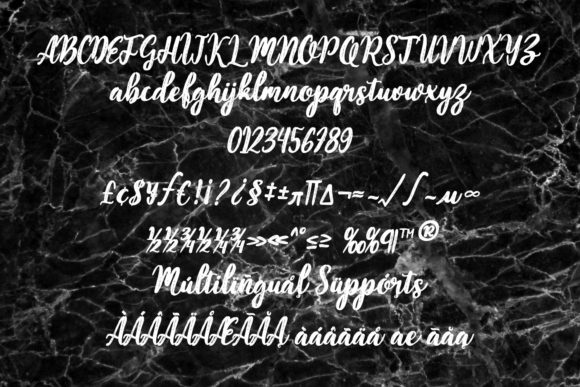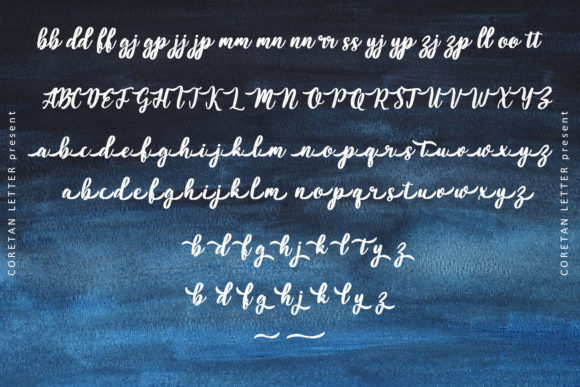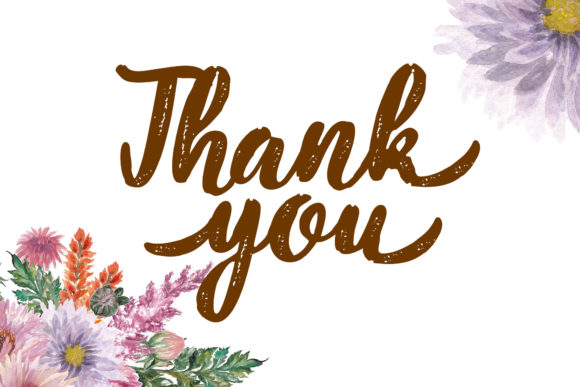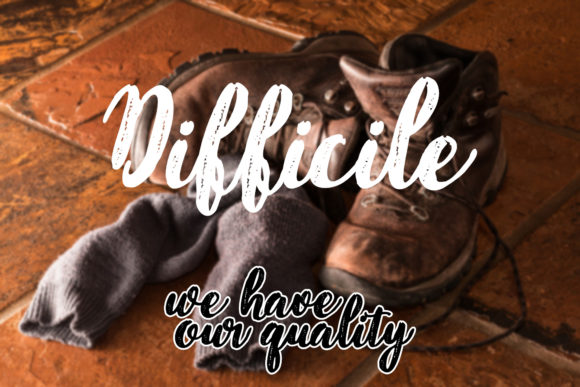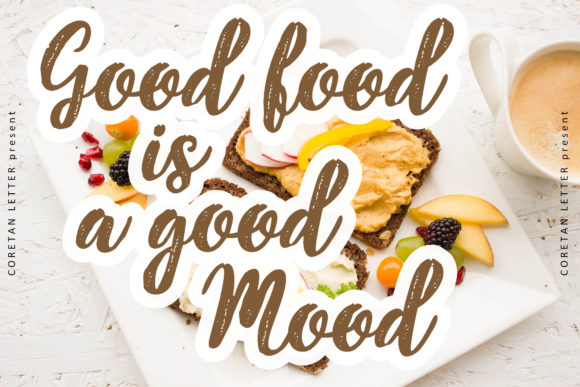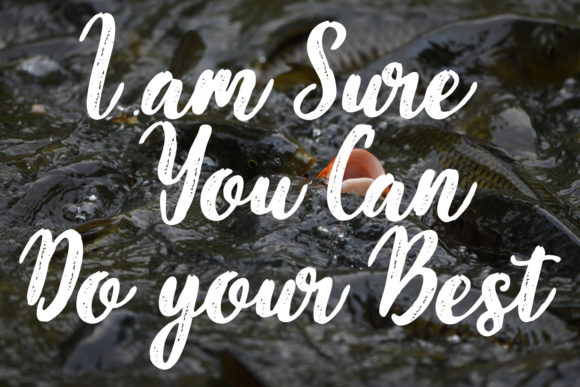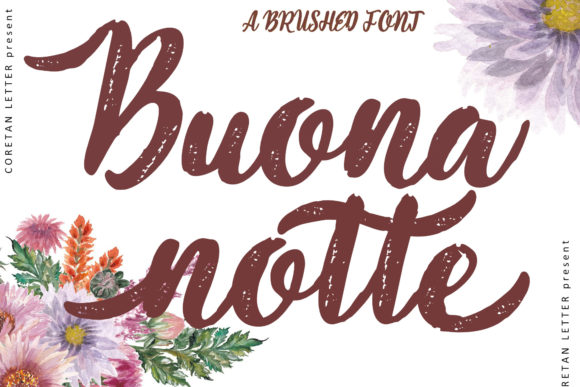
Introducing Buonanotte Font: The Elegant and Dainty Handwritten Font for Crafty Ideas
Are you a designer or crafter looking for a unique and elegant font to elevate your creative projects? Look no further than Buonanotte Font, a beautiful handwritten font that features sweet and delicate swashes. With its original look and versatility, Buonanotte is perfect for a wide range of crafty ideas, from letterheads and titles to stationery.
What Makes Buonanotte Font Special?
Buonanotte Font is an elegant and dainty handwritten font that boasts a distinctive and charming appearance. Its sweet and delicate swashes add a touch of sophistication and whimsy, making it perfect for designers and crafters who want to create unique and eye-catching projects. Whether you’re working on a letterhead, title, or stationery, Buonanotte Font is sure to impress.
Key Features of Buonanotte Font
- Elegant and Dainty Handwritten Font: Buonanotte Font features a beautiful, handwritten design that’s both elegant and dainty.
- Sweet and Delicate Swashes: The font includes sweet and delicate swashes that add a touch of sophistication and whimsy to your projects.
- PUA Encoded: Buonanotte Font is PUA encoded, which means you can access all of the glyphs and swashes with ease.
- Versatile: Buonanotte Font is perfect for a wide range of crafty ideas, from letterheads and titles to stationery.
How to Use Buonanotte Font
Buonanotte Font is easy to use and can be incorporated into a variety of design projects. Here are a few ideas to get you started:
- Letterheads: Use Buonanotte Font to create elegant and sophisticated letterheads that make a lasting impression.
- Titles: Add a touch of whimsy and charm to your titles with Buonanotte Font’s sweet and delicate swashes.
- Stationery: Create beautiful and unique stationery with Buonanotte Font, perfect for special occasions or everyday use.
Benefits of Using Buonanotte Font
There are many benefits to using Buonanotte Font in your design projects. Here are a few:
- Unique and Eye-Catching: Buonanotte Font is a unique and eye-catching font that’s sure to stand out in any design project.
- Elegant and Sophisticated: The font’s elegant and sophisticated design makes it perfect for projects that require a touch of refinement.
- Versatile: Buonanotte Font can be used in a wide range of design projects, from letterheads and titles to stationery.
Tips for Getting the Most Out of Buonanotte Font
Here are a few tips for getting the most out of Buonanotte Font:
- Experiment with Different Sizes and Colors: Try out different sizes and colors to see how Buonanotte Font looks in different contexts.
- Pair with Other Fonts: Pair Buonanotte Font with other fonts to create a unique and eye-catching design.
- Use Swashes Creatively: Use Buonanotte Font’s sweet and delicate swashes creatively to add a touch of whimsy and charm to your projects.
| Font Name | Buonanotte Font |
| Author | Coretanletter |